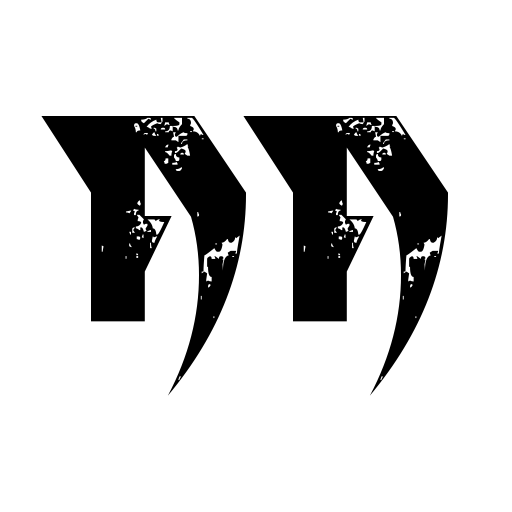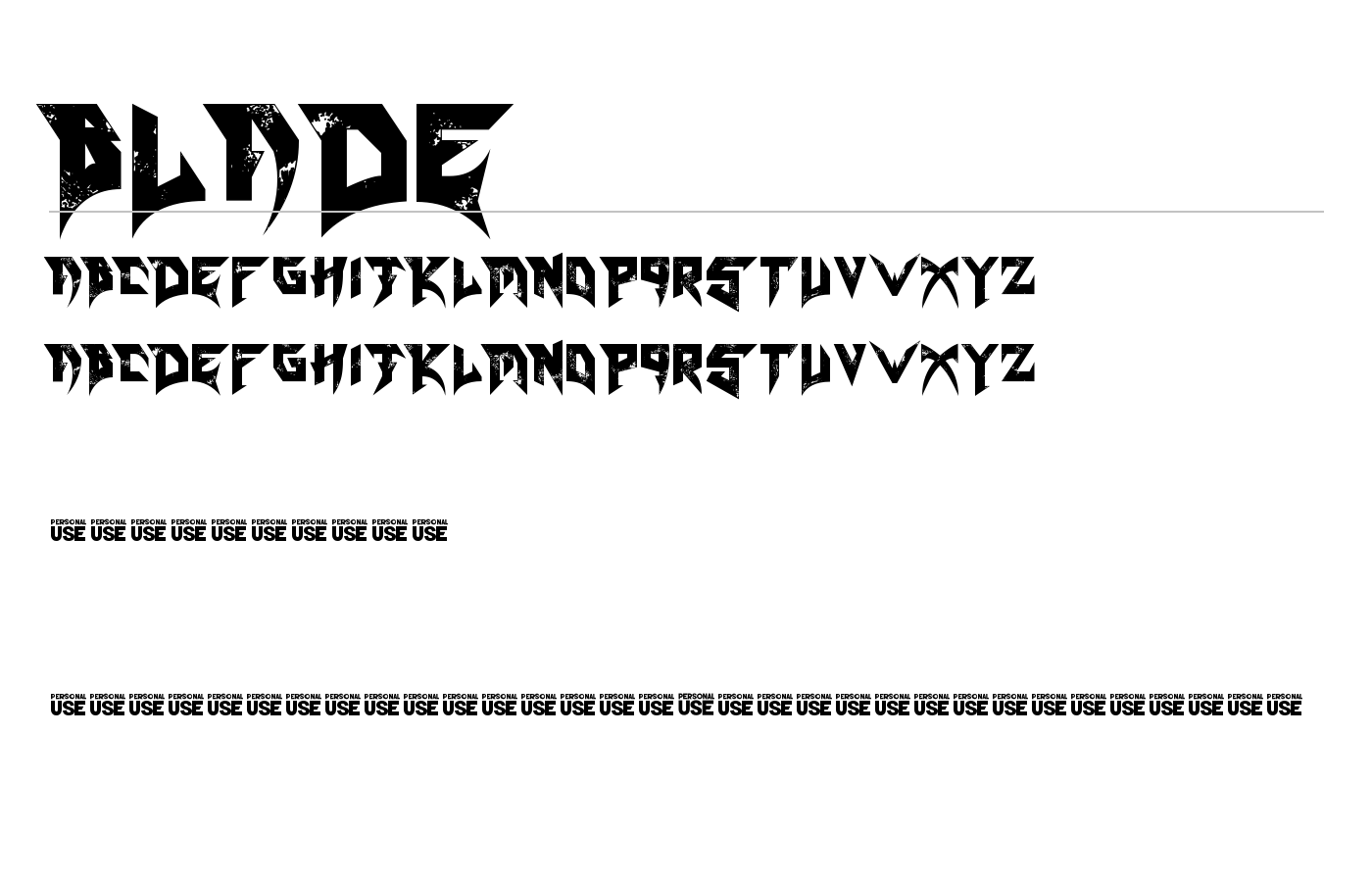
Blade Font is a bold, angular display typeface with sharp, geometric edges and a distressed texture that gives it a rugged, aggressive personality. Its all-caps, condensed letterforms with dramatic points create a striking, energetic vibe ideal for edgy branding, posters, and headlines aiming to convey strength and intensity. This font works especially well in contexts like music, gaming, or extreme sports where a bold, rebellious attitude is key.
Blade Font
About Blade Font